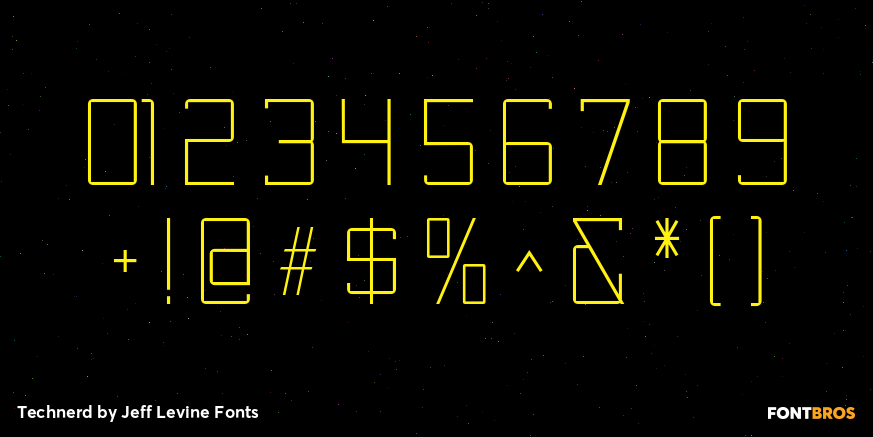
Technerd
The quest for an identity in the 1980s world of personal computers is the best way to describe Technerd JNL… a retro-style monoline font with clinically mechanical letter structure and a personality only a dot matrix could love.
Picture if you will columned reports, interoffice memos and other paper ephemera of the day with this perfect form-and-function typeface, simply reeking of early 80s know-how!